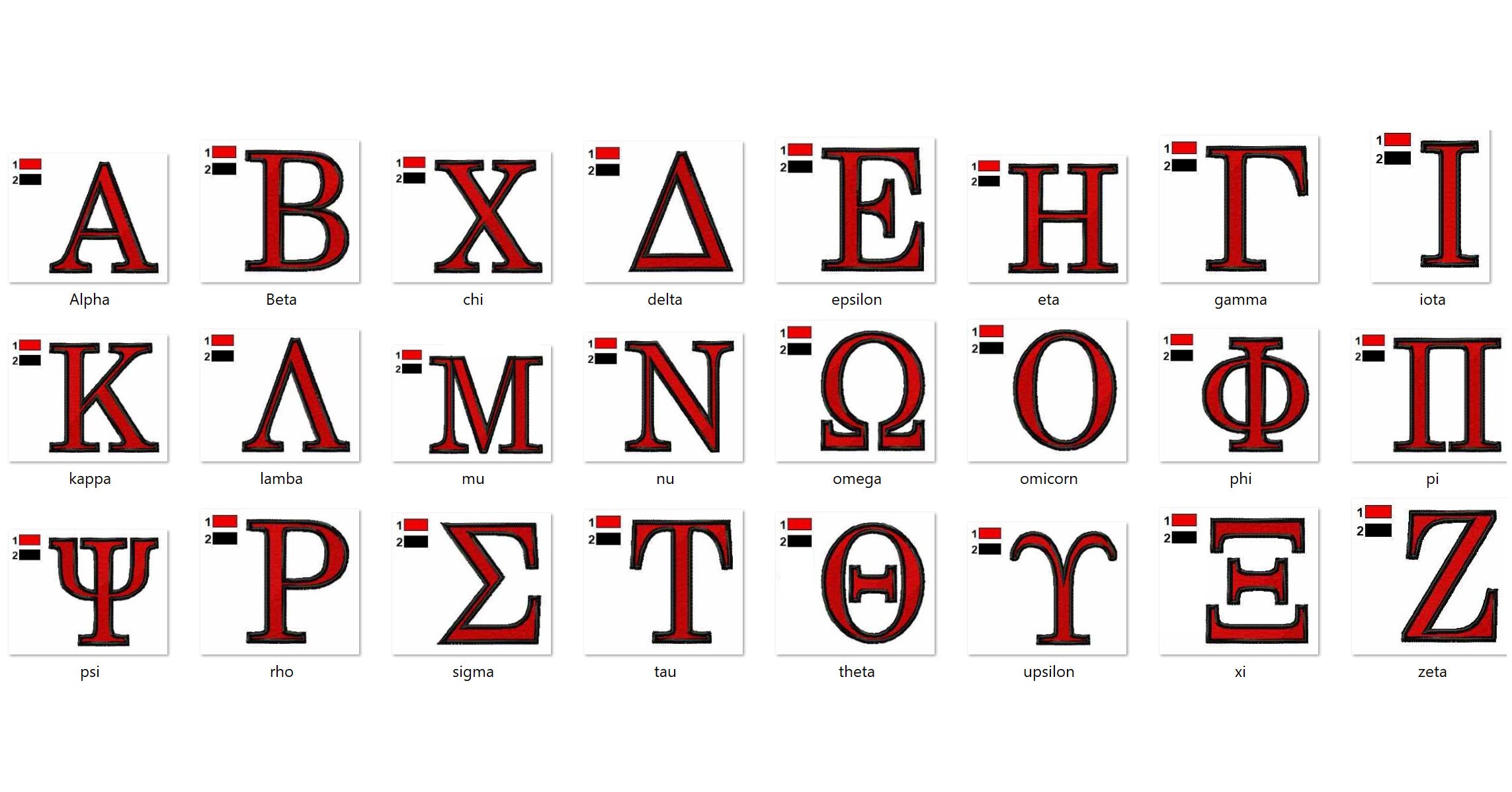
School GREEK FONT mini alphabet ABC, theta alpha omega alpha kappa alpha, mini font Greek letters Sorority machine embroidery designs
Fill stitch Greek letters have contrast outline